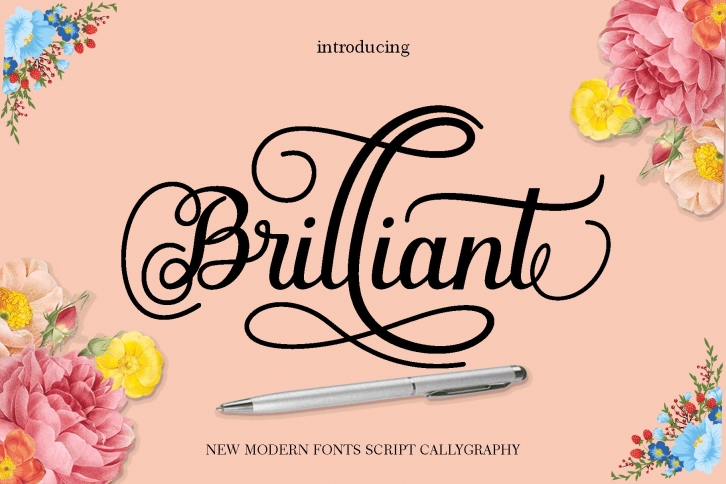
Brilliant ,6 is a beautiful font that was designed by Letterfonts. It's a great choice for designers and creatives who need such a font. It was released on April 12, 2020 and the file size is 5.62 MB. Brilliant ,6 may give a more youthful, expressive and casual look to your project. It is a very beautiful, refined, elegant, and high-quality font.